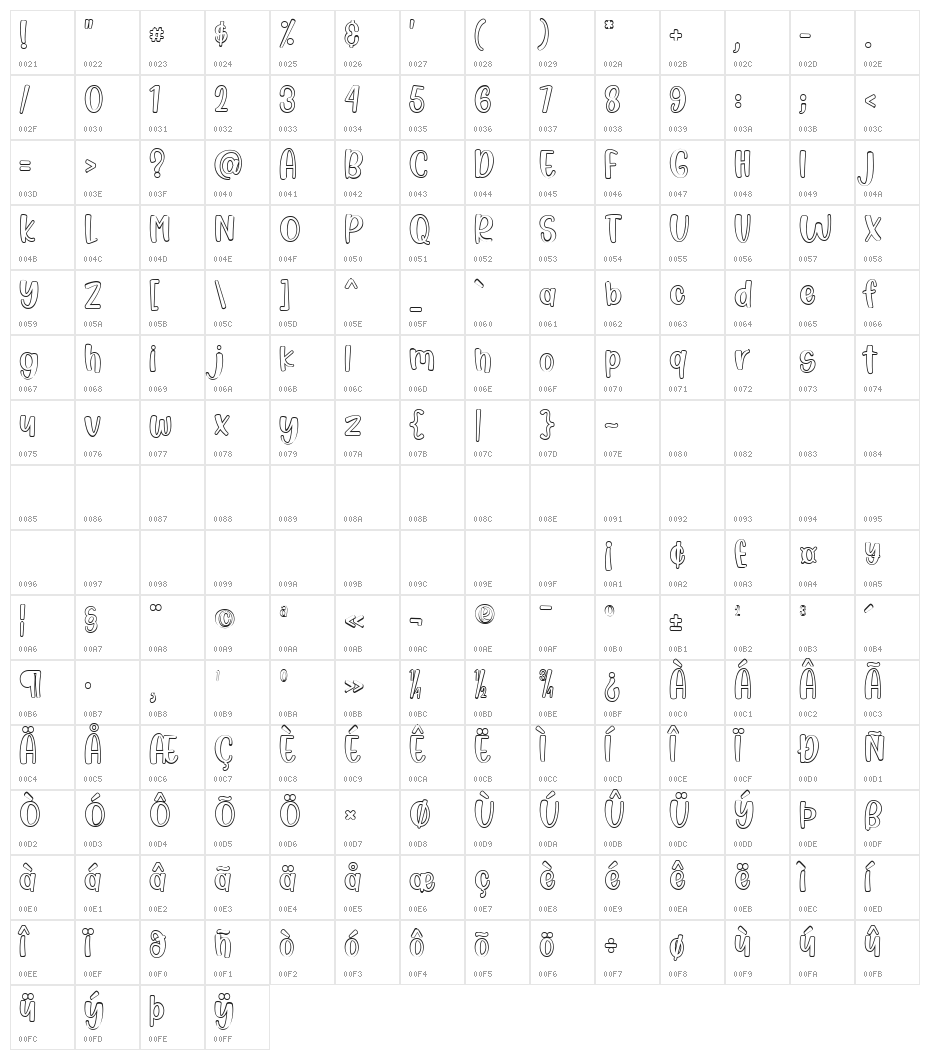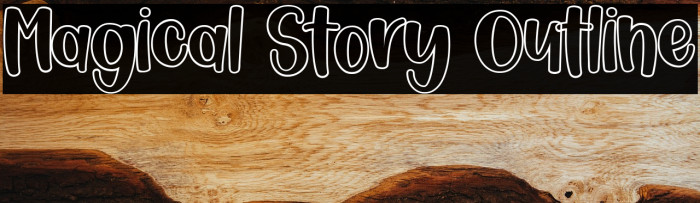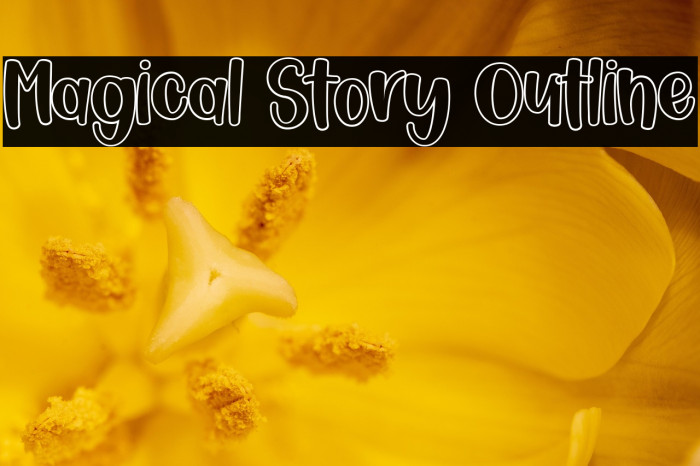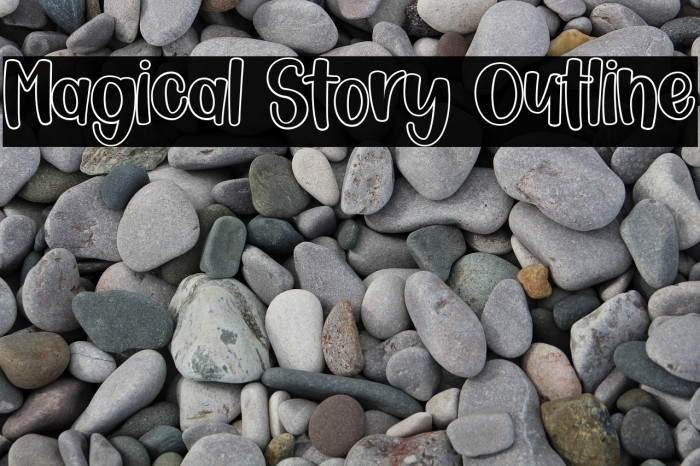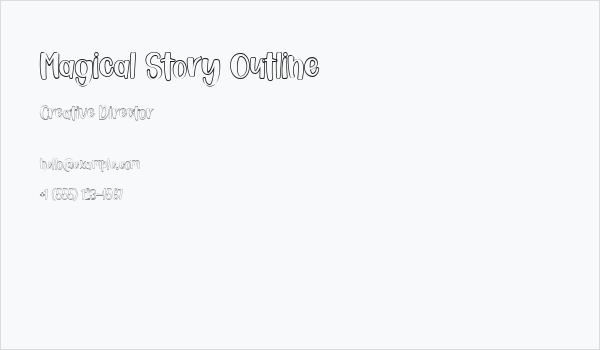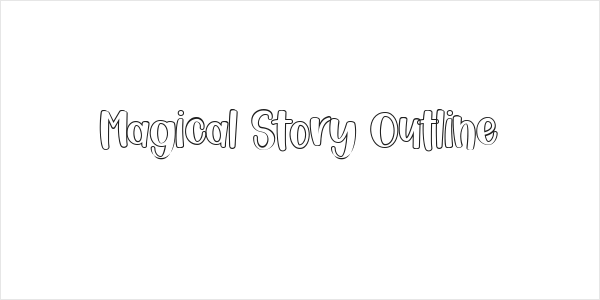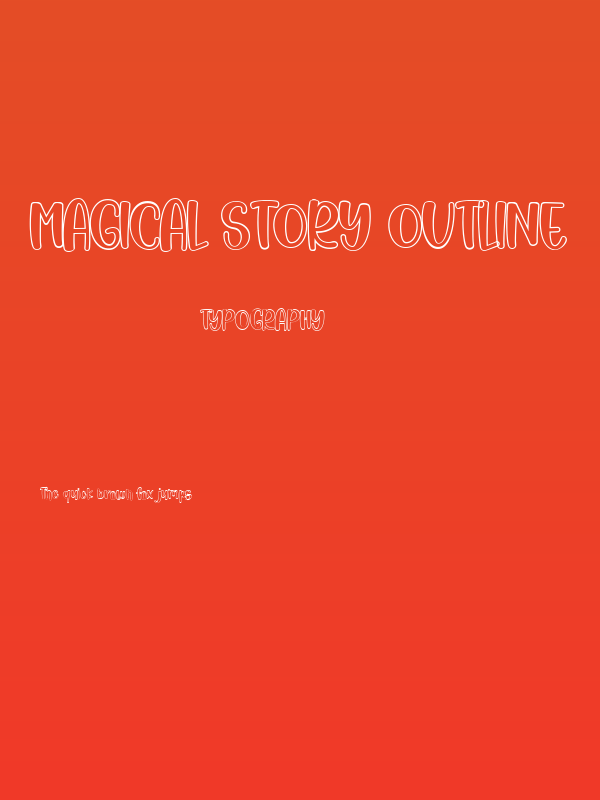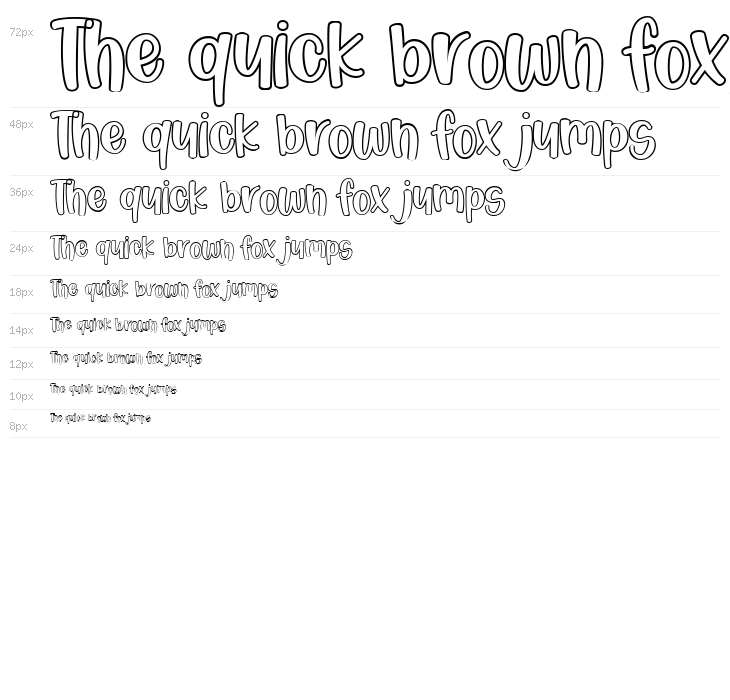
Magical Story Outline Font
Magical Story Outline Description
This playful and whimsical font features a bold, outlined style with a hand-drawn appearance. The characters are rounded and slightly irregular, giving them a friendly and approachable feel. The uppercase and lowercase letters maintain a consistent style, with the lowercase letters being slightly more compact. Numbers and special characters are included, each maintaining the same playful outline. The font's design is perfect for projects that require a fun and informal touch, such as children's books, greeting cards, or playful branding. Its unique style makes it stand out, while still being legible and versatile.
| Overall Style | Whimsical, Playful |
| Proposed Projects | Ideal for children's books, greeting cards, playful branding, and creative posters. |